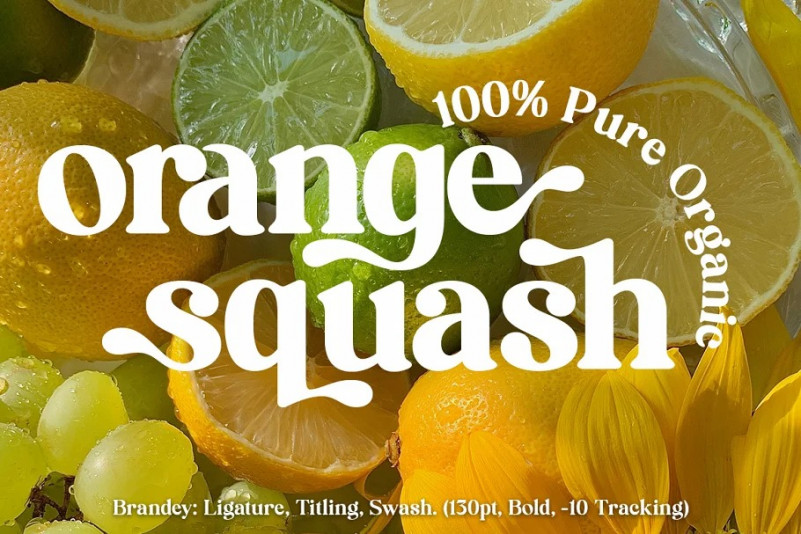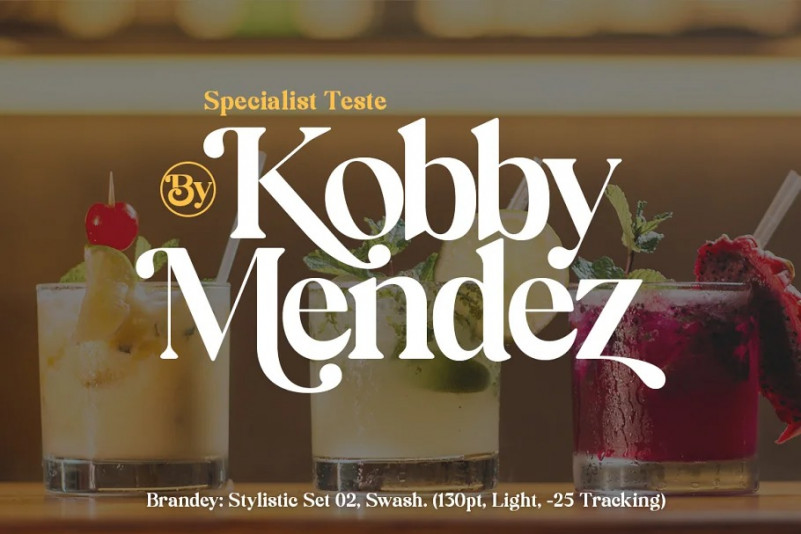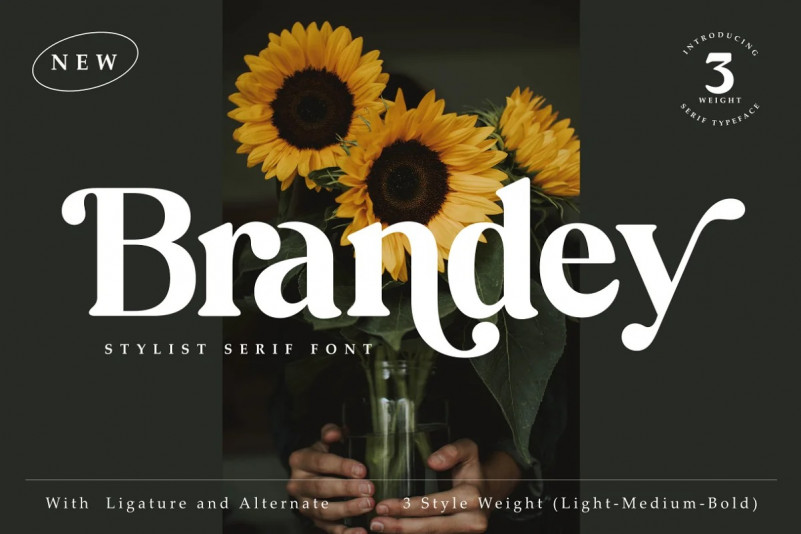
Brandey Font
Brandey is a serif font with a modern style. Has a warm feel and still elegant. The 3 thicknesses will help designers to choose as needed for their designs. Brandey is well-suited for advertising, branding, logotypes, packaging, titles, headlines and editorial design. Equipped with an Opentype feature with a large selection of alternative characters (Discretionary Ligature, Smallcaps, Stylistic Alternate, Stylistic Set 1-3, Titling, Swash) makes this font very versatile